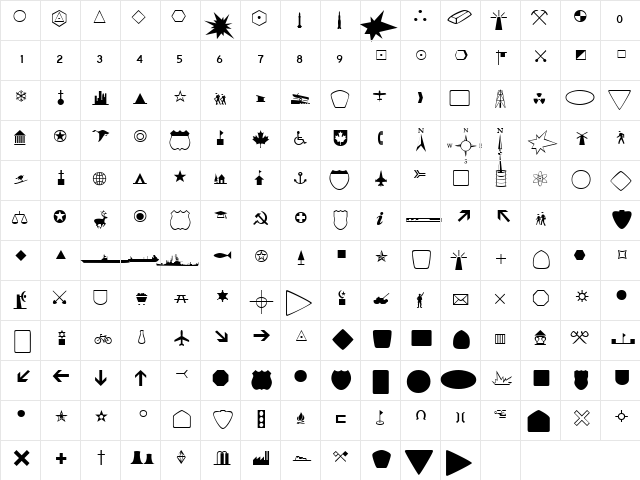
CartographerLightSSK Regular Font Preview
CartographerLightSSK Regular
CartographerLightSSK Regular Font Details
Design Context for CartographerLightSSK Typeface
CartographerLightSSK is a composed and adaptable typeface that performs quietly and consistently across a wide range of design contexts. Its slender proportions lend an understated elegance to any composition.